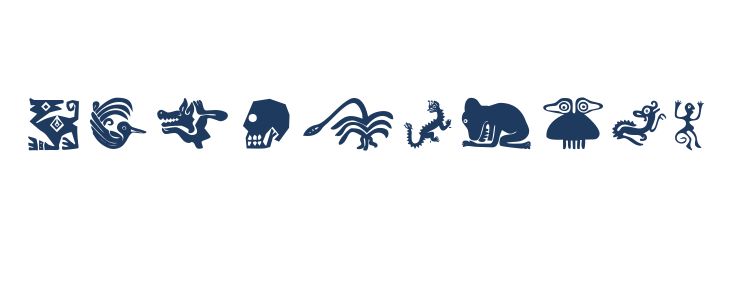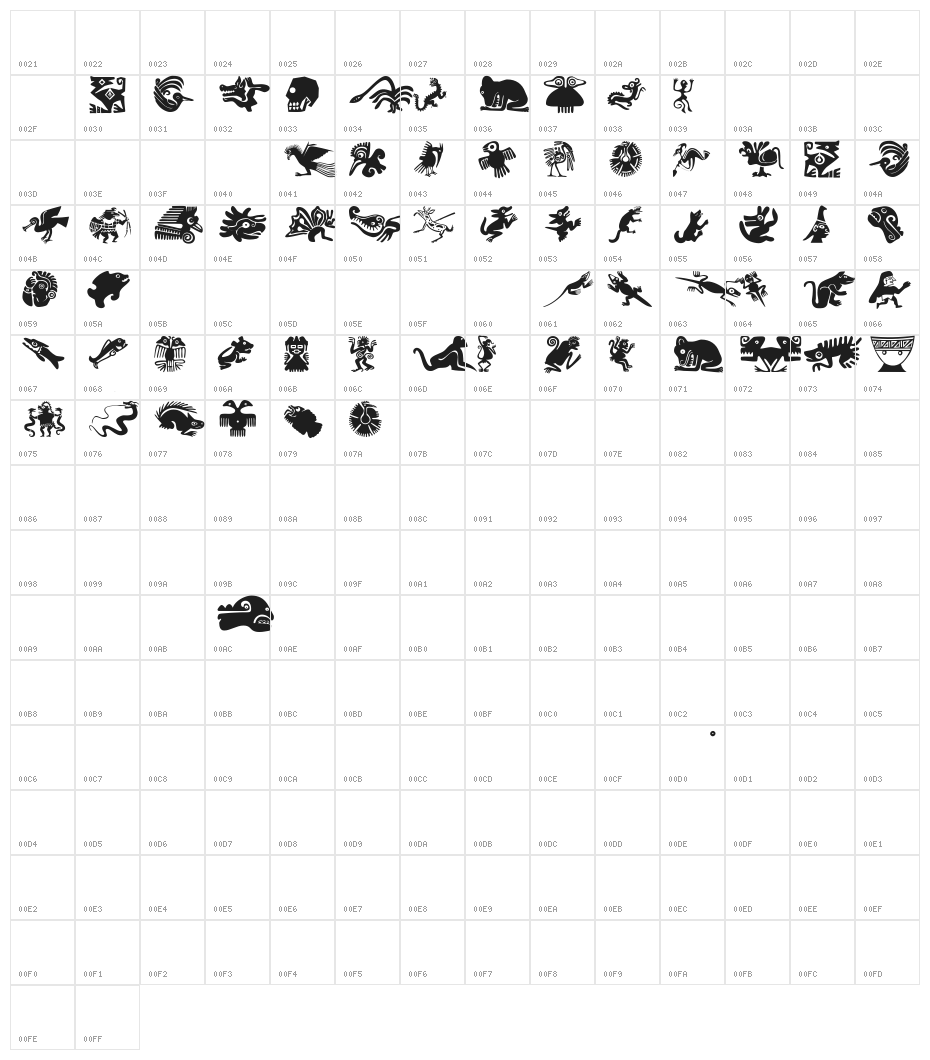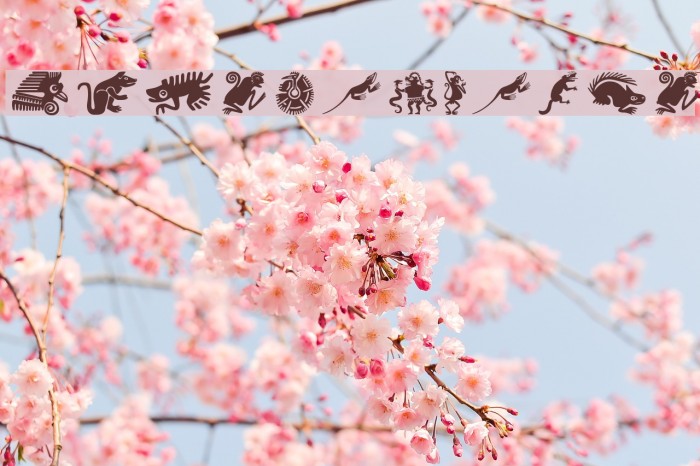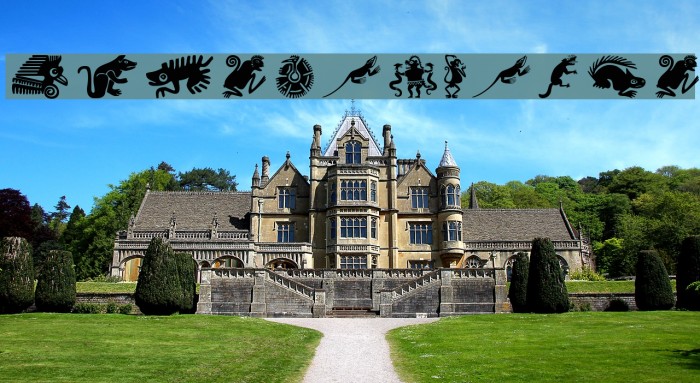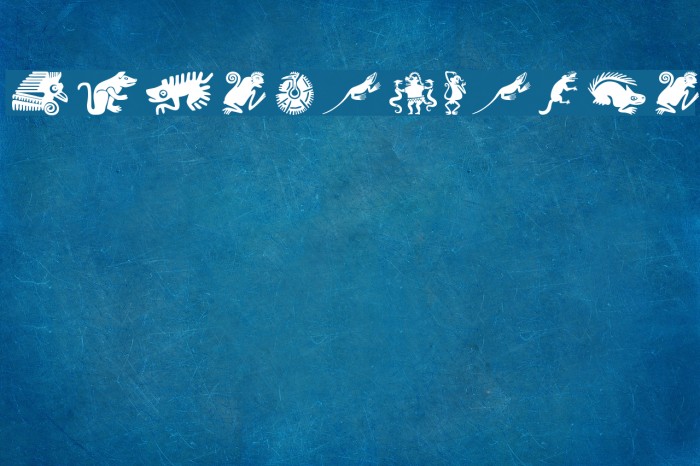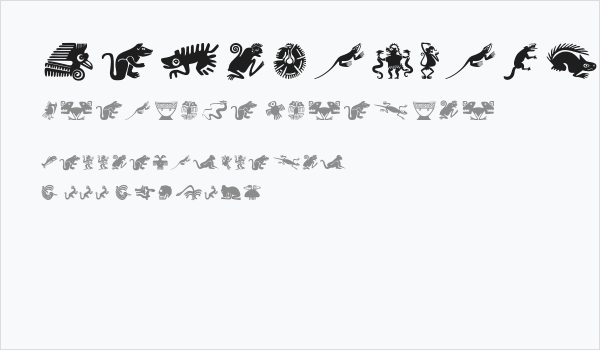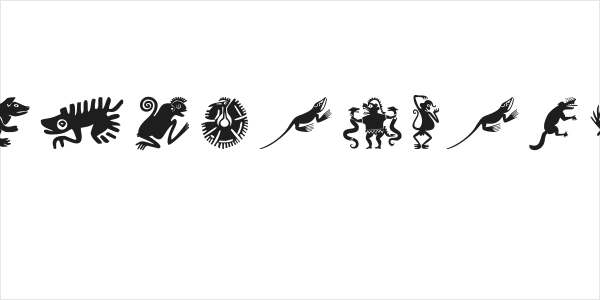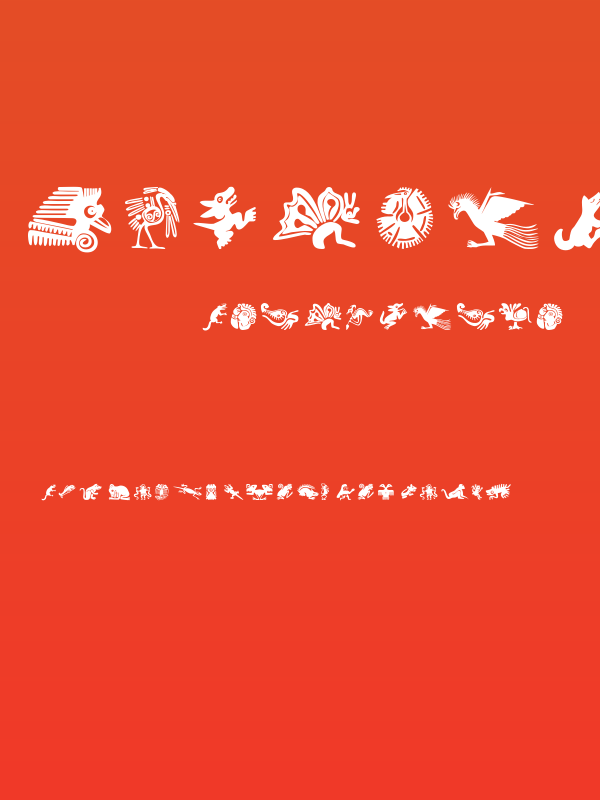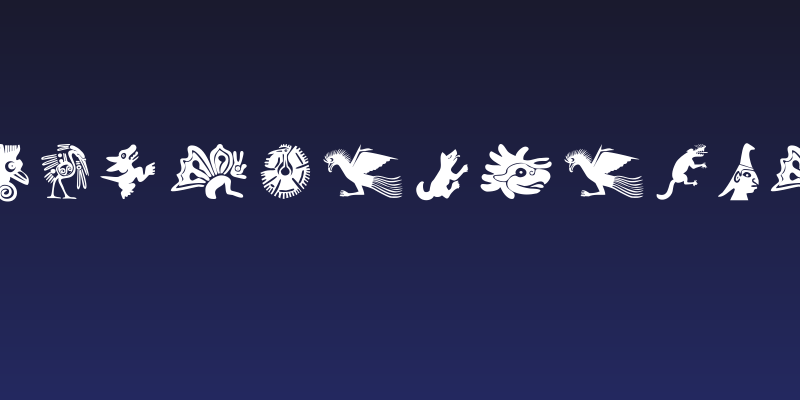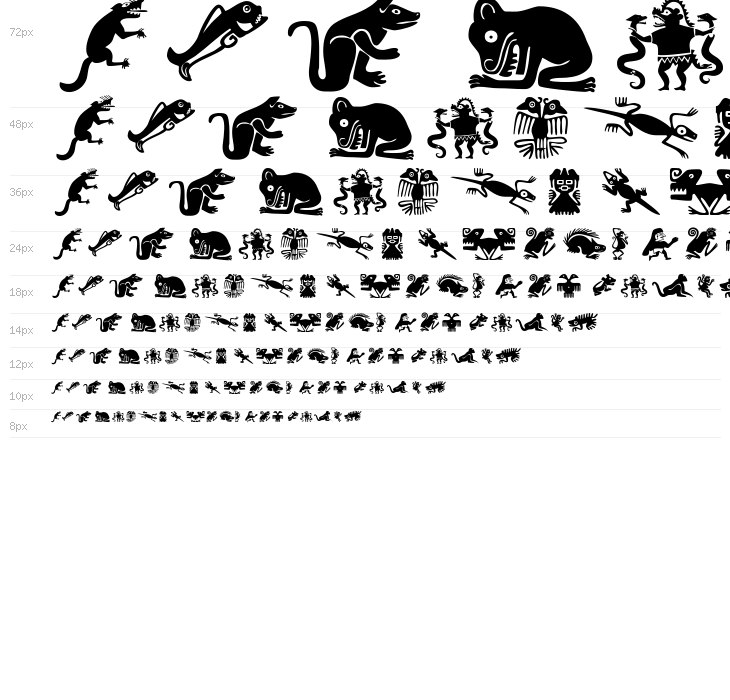
MesoFaunaTwo Font
MesoFaunaTwo Description
This collection features a series of intricate, stylized glyphs inspired by Mesoamerican fauna. Each character is a unique representation of animals and mythical creatures, rendered in bold, black silhouettes. The designs are highly decorative, with intricate details that suggest a deep cultural significance. The characters are not uniform in size or shape, adding to the eclectic and artistic nature of the set. This font is more of a symbolic representation rather than a traditional alphabet, making it ideal for artistic and thematic projects.
| Use Case | Logos, Art projects, Themed decorations |
| Proposed Projects | Ideal for cultural art projects, themed event posters, educational materials on Mesoamerican history, and decorative elements in graphic design. |